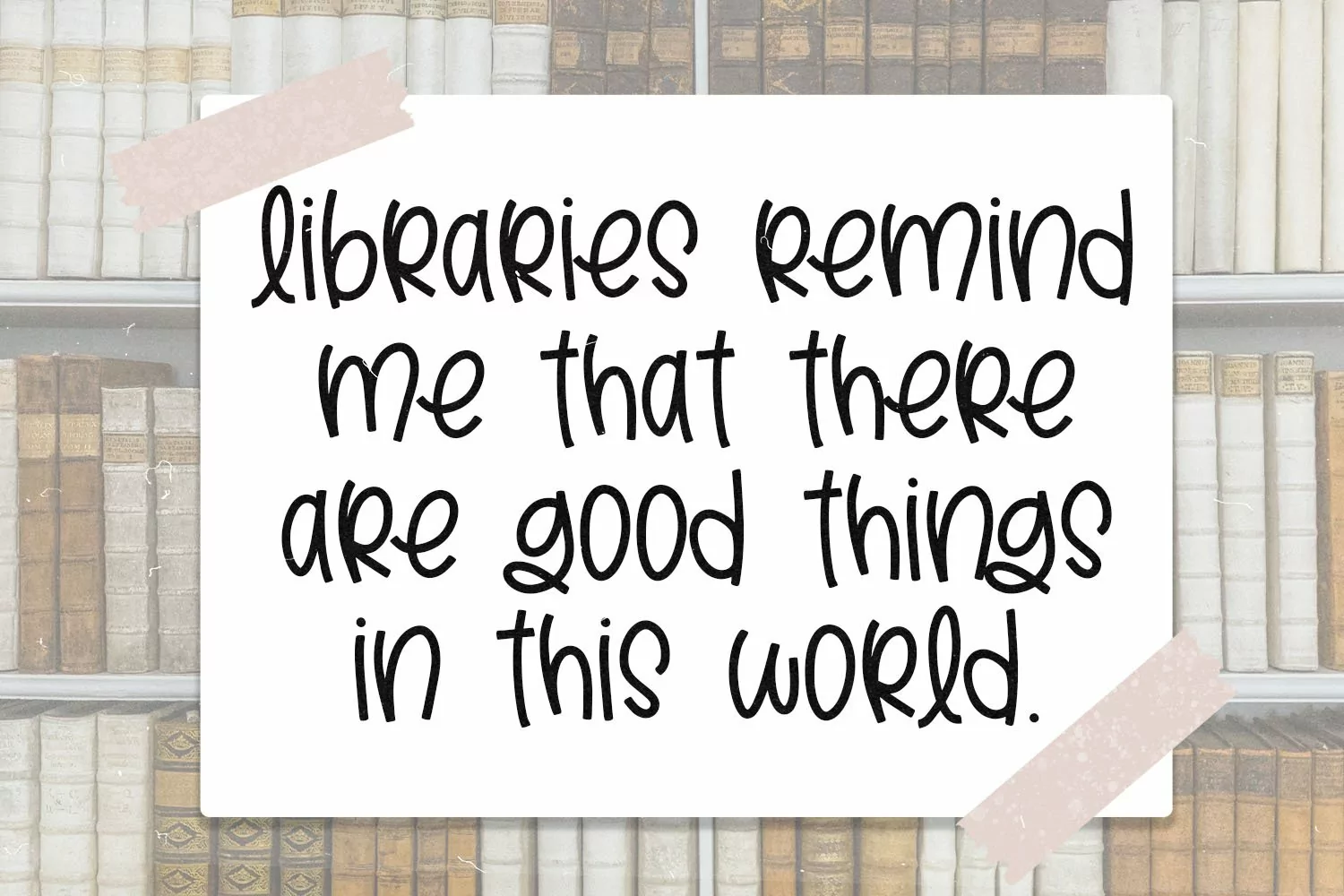
Library Card - Hand Lettered Font - Crafting Font
This font is hand lettered! Use this fun & cute font for all of your creative needs! Making SVGs, graphic design projects, shirts, wood signs, cards, social media, stickers, blog posts, and much more! This is a smooth font - perfect for cut machines like Cricut and Silhouette!